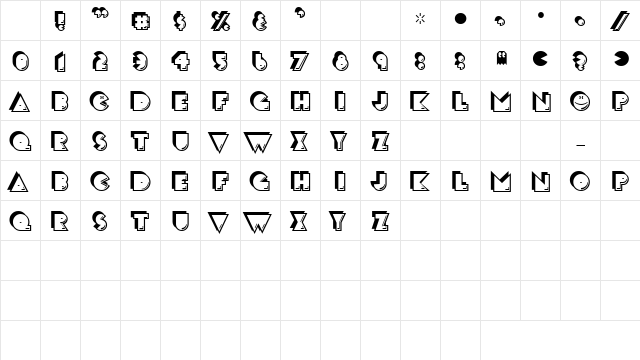
Complete CrackMan Regular glyph index. Displaying only characters natively supported by CrackMan Regular font.
CrackMan is a composed and adaptable typeface that performs quietly and consistently across a wide range of design contexts.